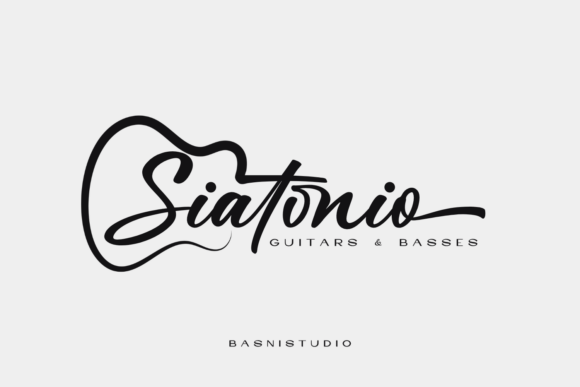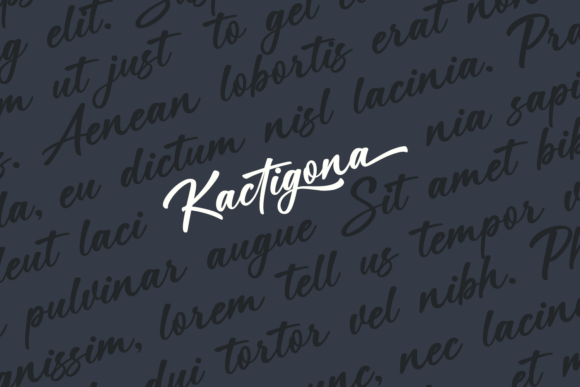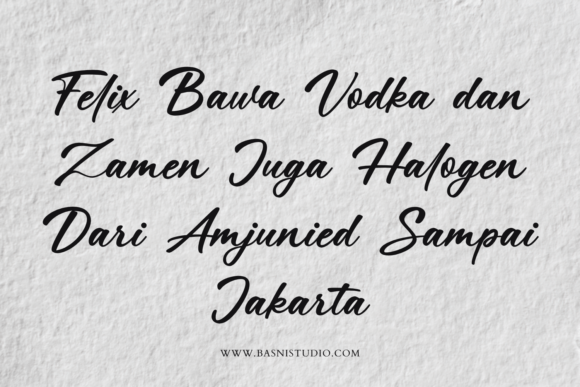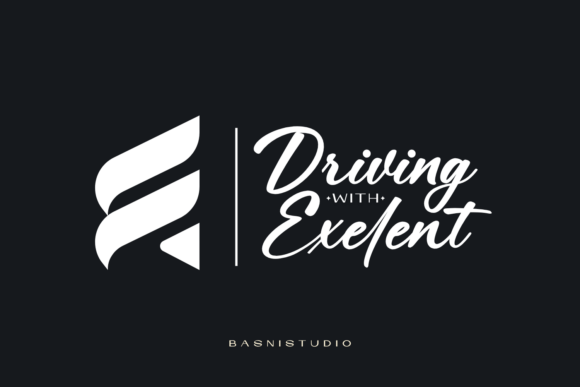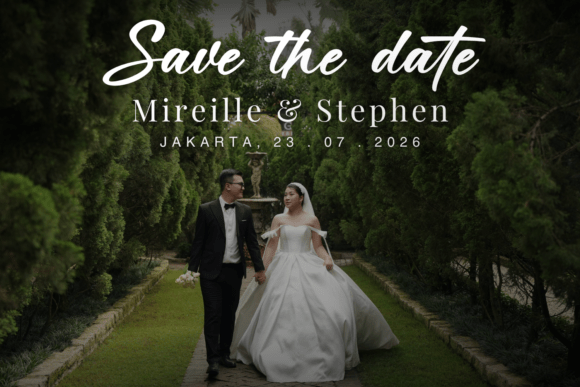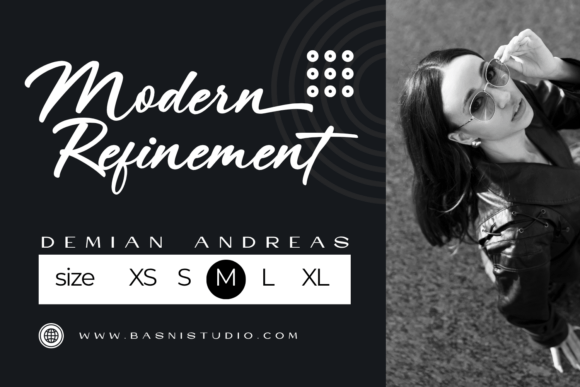
Introduction to Kactigona Font Font
Fonts play a crucial role in design, and the Kactigona Font font is a typeface that brings both character and versatility to any project. Whether you’re working on a branding project, a website, or a print design, the Kactigona Font font offers a unique style that can elevate your work.
Inject a surge of raw, confident energy into your graphic arrangements with Kactigona, a striking bold handwritten font.
Replicating the smooth, high-impact flow of a thick chisel-tip acrylic paint marker, this contemporary display script is characterized by its heavy visual footprint and expressive, rhythmic slant Its unique structural signature lies in its sweeping initial strokes, tight character connections, and an elegant, stylized underline swash that loops effortlessly beneath the lowercase letters.
Key Features of Kactigona Font Font
Why Choose Kactigona Font Font?
The Kactigona Font font is more than just a typeface – it’s a design tool that helps you communicate your message with style and clarity. Its unique character set and versatile design make it suitable for a wide range of applications, from elegant invitations to bold headlines.
With its carefully crafted letterforms and balanced proportions, the Kactigona Font font ensures readability and visual appeal across all mediums.
What makes Kactigona Font font special?
The Kactigona Font font stands out with its unique design, exceptional readability, and versatility across various design applications.